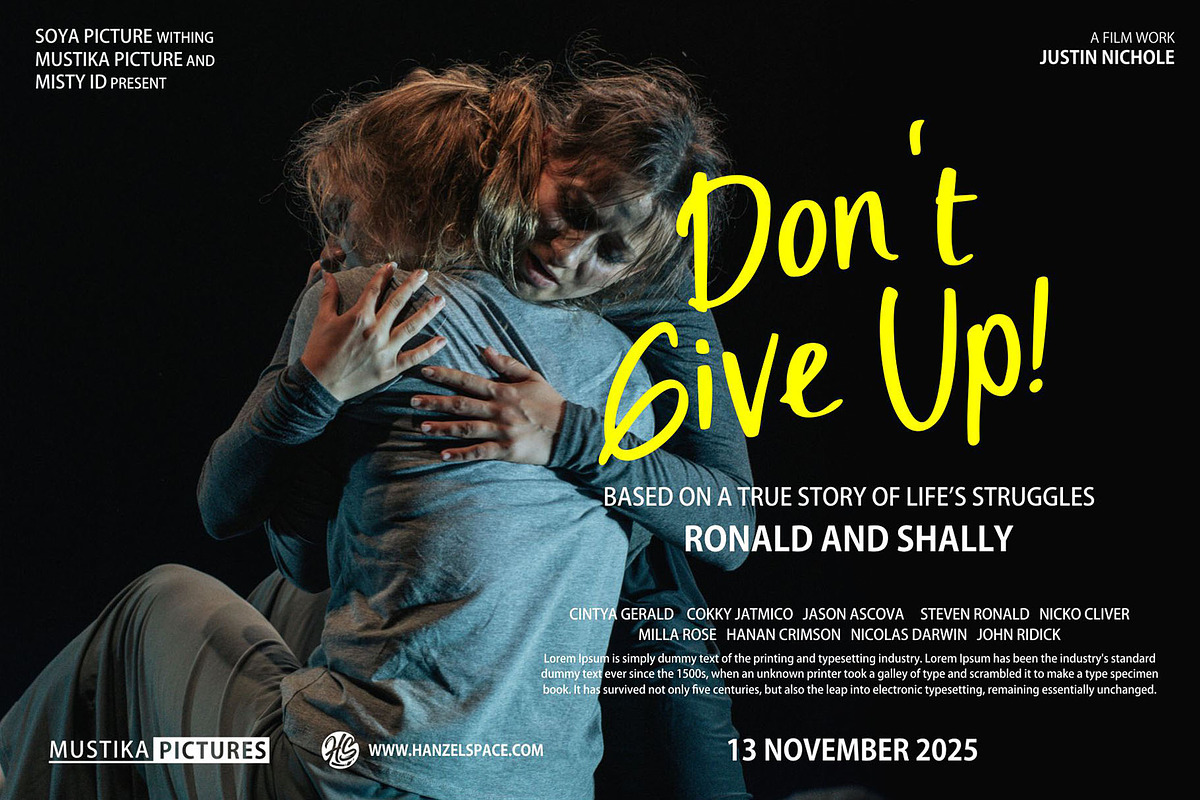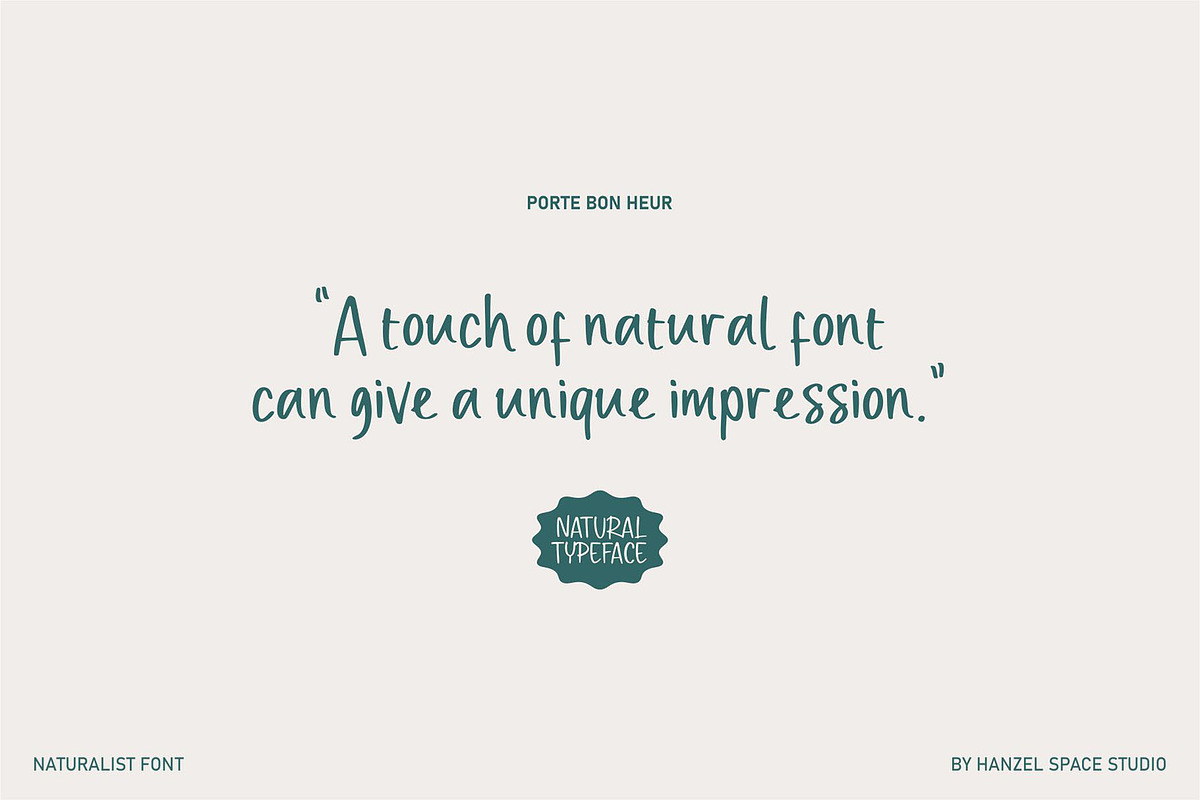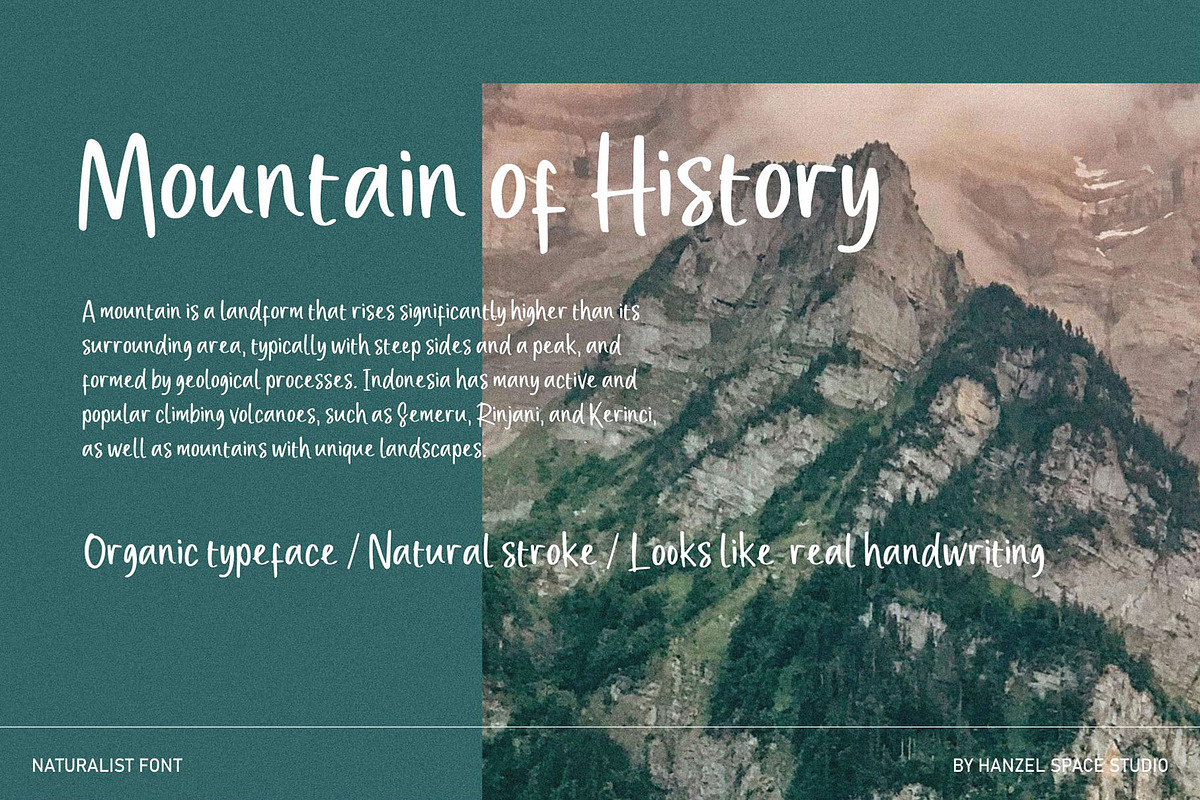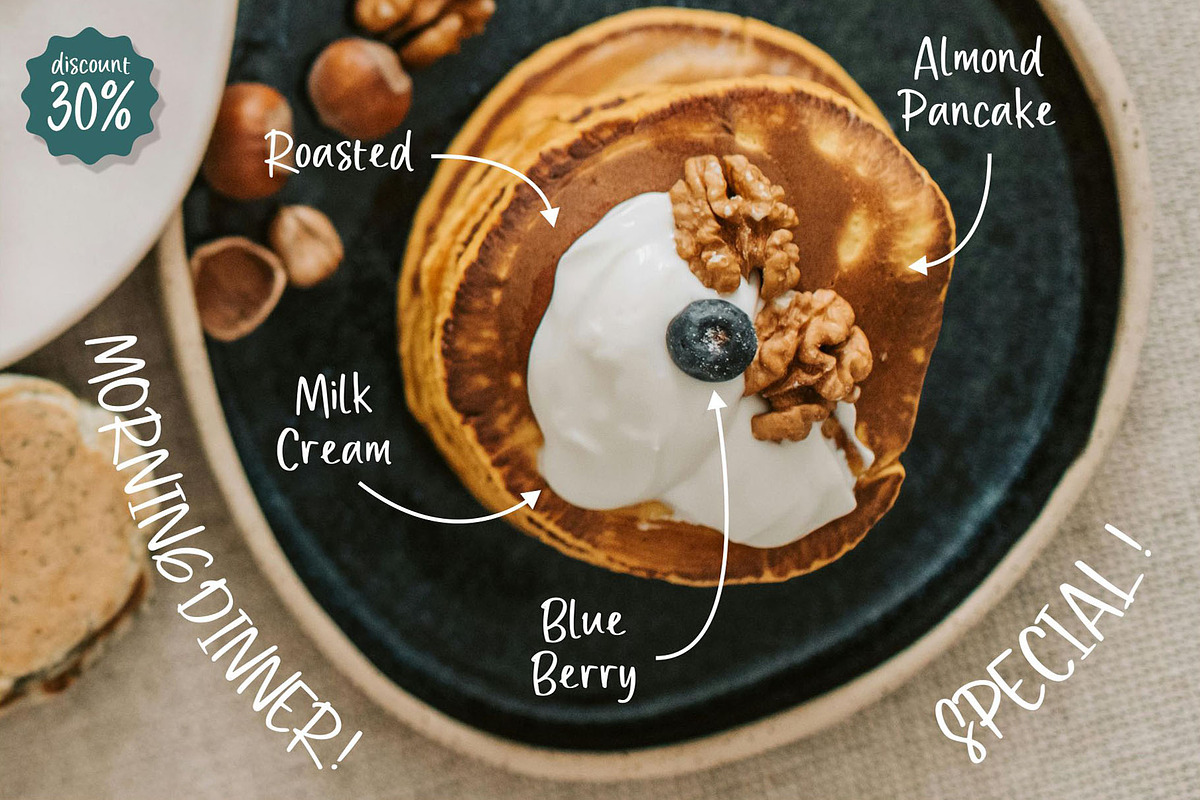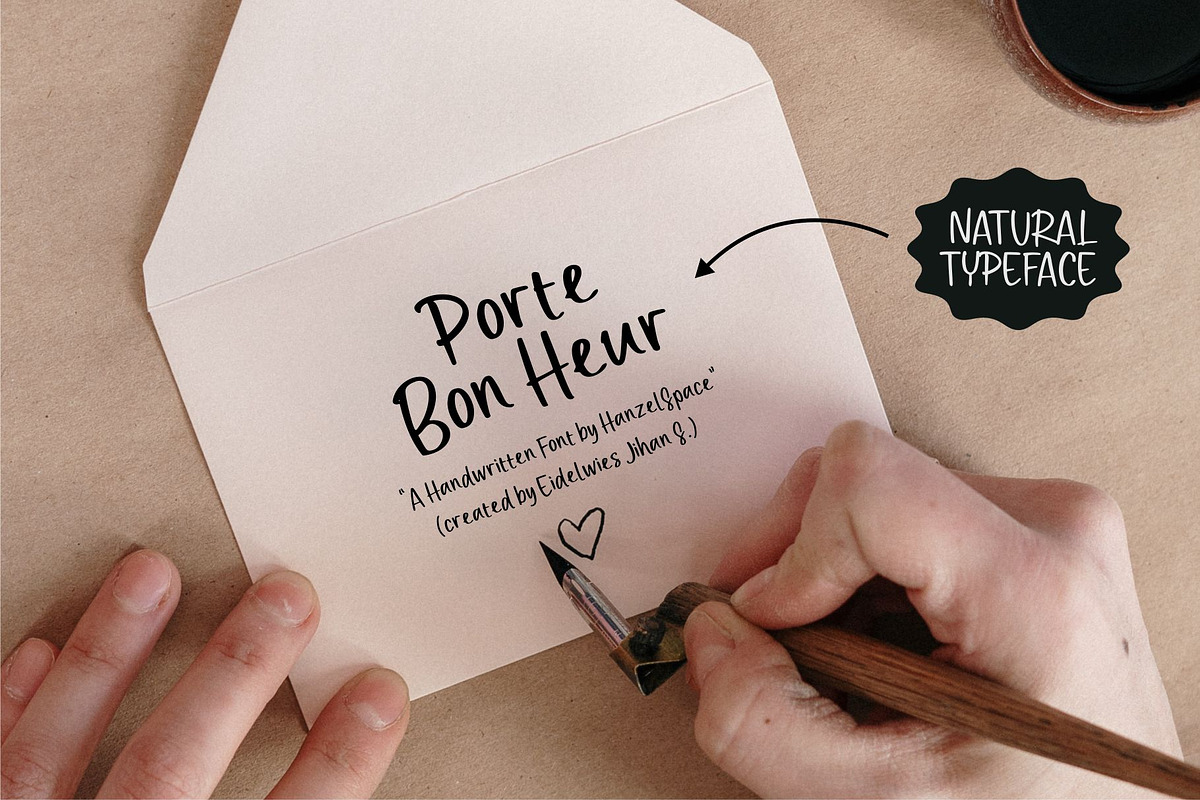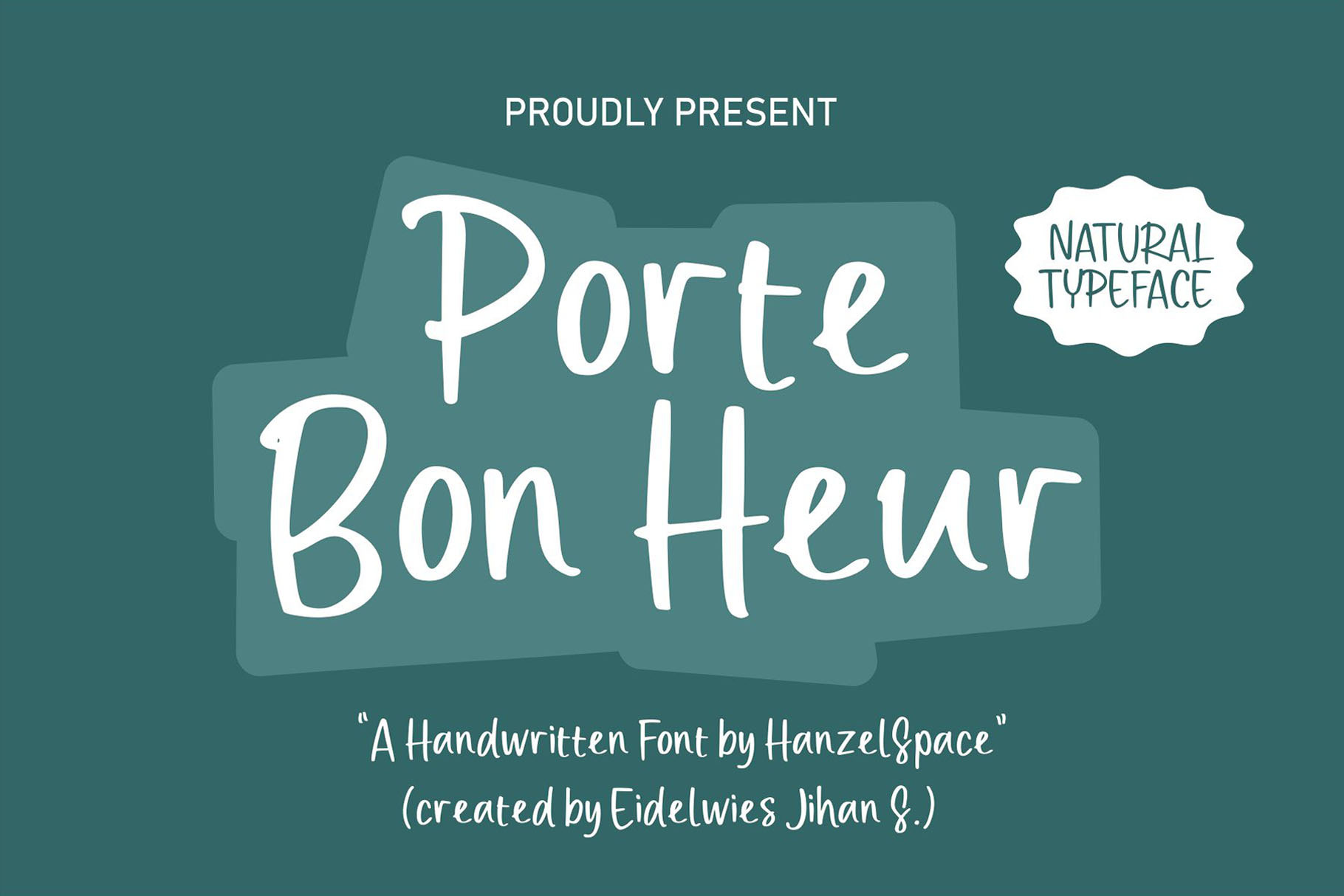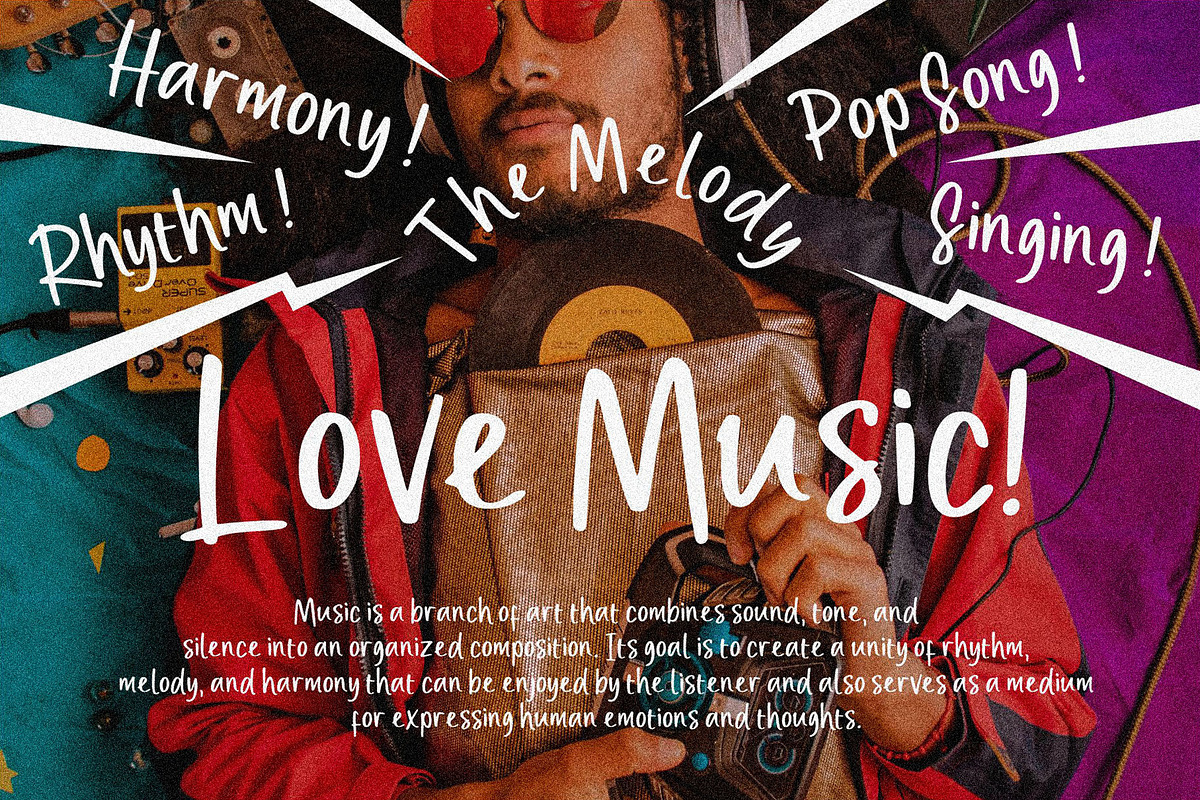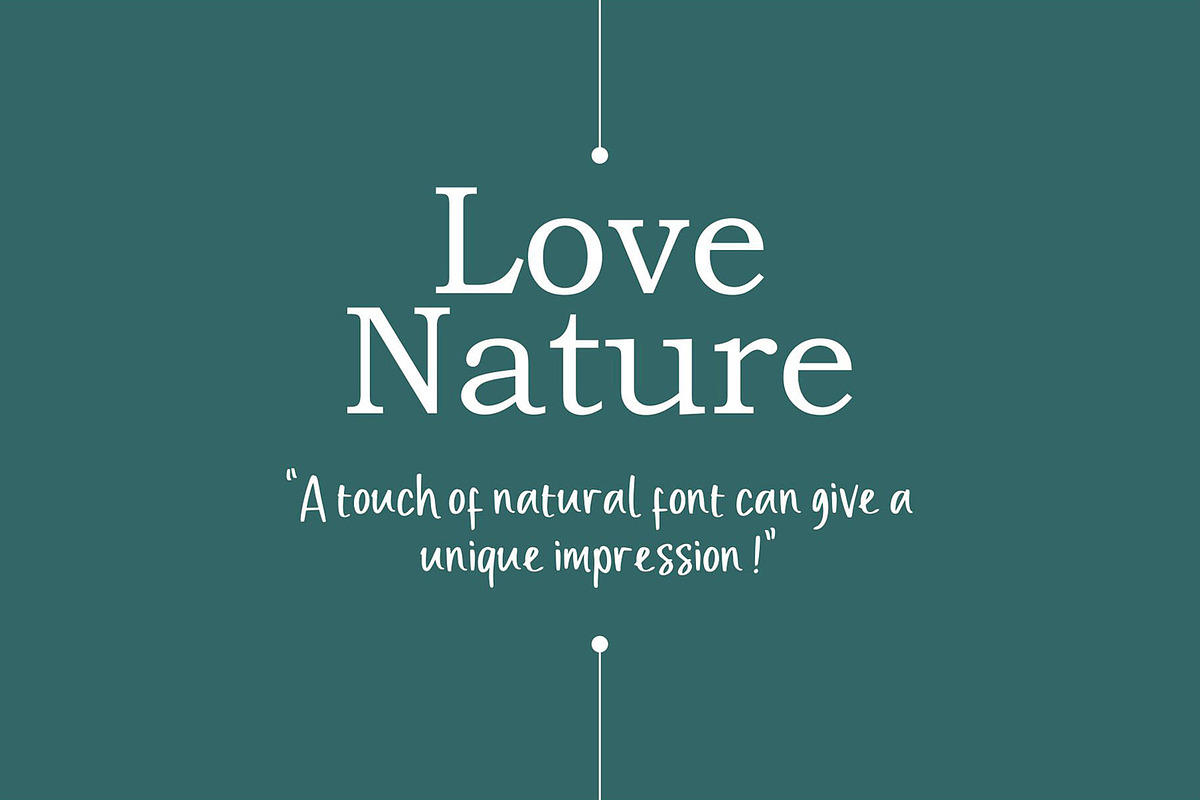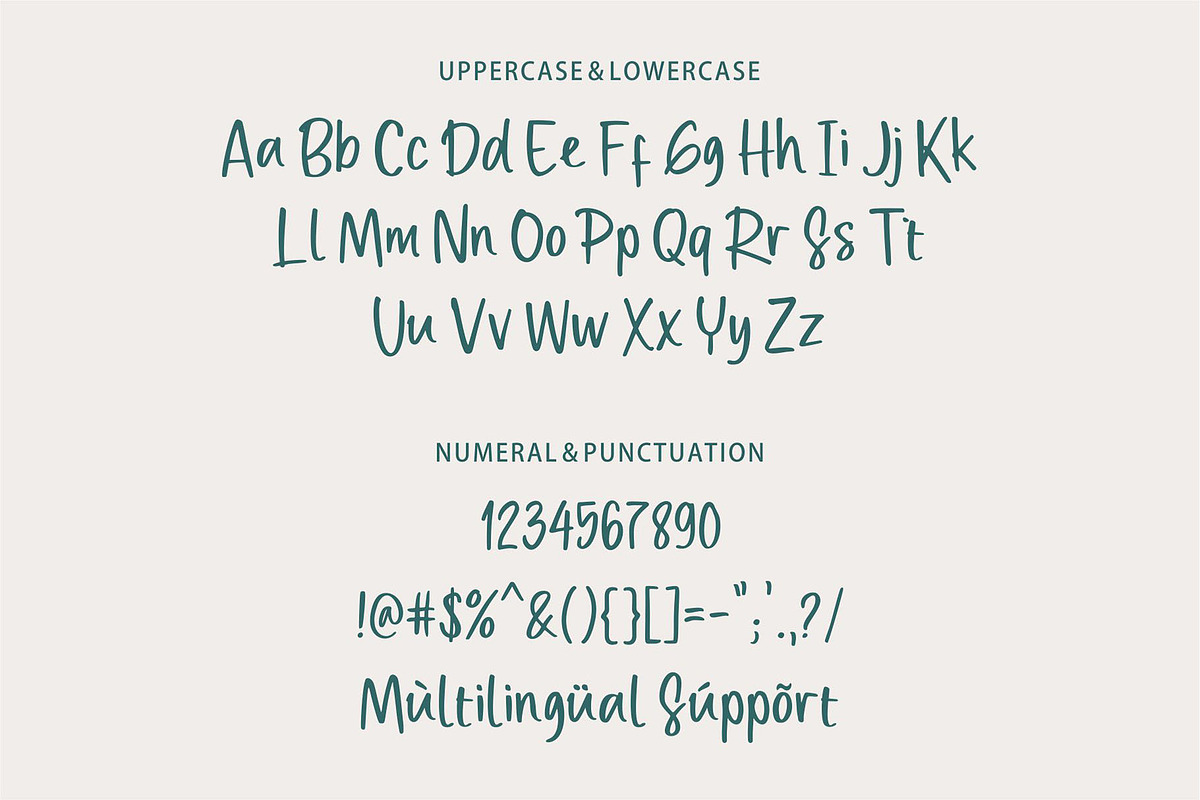
Porte Bon Heur - A Handwritten Font
Porte Bon Heur - is a natural handwritten font with an expressive, slightly imperfect handwriting feel. This font presents a unique, authentic stroke. This type of font perfectly made to be applied especially in logo, headline, signage and the other various formal forms such as invitations, quote, books, greeting / wedding cards, packaging, magazines, fashion, make up, stationery, labels, novels, festival, event, labels or any type of advertising purpose.
Multilanguage Supports